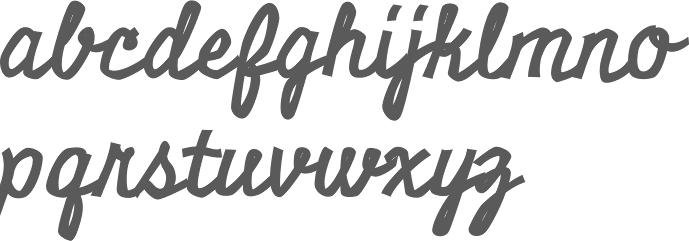
Open Window [Dathan Boardman]
Dathan Boardman (Open Window) is an American type designer who lives in Eau Claire, WI, and was born in 1979. He went to UW Stout to get his BFA in Graphic Design.
His typefaces:
• Afternoon Tea (2010), an art deco typeface that is inspired by a lettering specimen featured in Letters and Lettering by Paul Carlyle and Guy Oring published in 1938.
• Art Club (2013) and Art Club Roman (2014).
• Backlash (2015, Molly Jacques Erickson and Dathan Boardman). The next step in gonzo splatter lettering scripts.
• Baseline Script (2013). A thin-lined upright script.
• Caesar Dressing Pro (2011). A Greek simulation / stone chisel face.
• Calla Script (2017). By Molly Jacques and Dathan Boardman.
• Calligraffitti (2010). Free at Google Fonts.
• Clarendon Paint (2010).
• College Dropout (2010): a sketch typeface based on athletic lettering glyphs.
• Coming Soon and Calligraffiti (2010): free fonts at the Google Font Directory. The Pro versions are commercial.
• Cowboy Stories (2013).
• Deco and Deco Hatched (2010): art deco headline typefaces.
• Distinction (2020). A script released by Great Lakes Lettering.
• Doriss Girls (2013). A marquee typeface family.
• Farm Girl (2011). A hand-printed face.
• Gold Diggin (2011) hearkens back to posters from the Gold Rush Era.
• Grannys Greenhouse (2019). A beatnik font by David Cohen and Dathan Boardman).
• Hand of Joy (2011) is a thin connected script face.
• Headbanger (2012). A heavy metal album cover font.
• Jacky Hand. Based on the handwriting of a 6-year old child.
• Liquor Store (2019).
• Metal Mania (2012). A spurred heavy metal band font, free at Google Web Fonts.
• Miniver Pro (2011) and Miniver Air Raid Pro (2012) are based on the titling for the 1942 movie Mrs. Miniver.
• Pen Swan (2016).
• Raindrop (2017). A flirty handcrafted typeface family for editorial illustration.
• Rifleman (2012) is a painted wide-slabbed typeface.
• Shag Script (2011). Was this renamed Shrag Script?
• Sketchura (2011) is a sketch face.
• Skyline Hotel (2014).
• Some Assembly (2012). A rounded organic sans family.
• Spur Rust (2011) is a disheveled take on the spicy classic Hellenic Wide.
• Undercoat (2011). A painted version of Helvetica.
• Velvet Hammer (2014). A calligraphic script co-designed with Jen Maton.
• Wide Noise (2010) is grungy.
Great Lakes Lettering in Eau Claire, WI, showcases the type designs of Dathan Boardman and Molly Jacques Erickson. They jointly designed the illustrative handwriting font Frosted in 2012. In 2013, they co-designed the hand-drawn typefaces Saint Agnes and Icing, and the script typeface Kailey (2013).